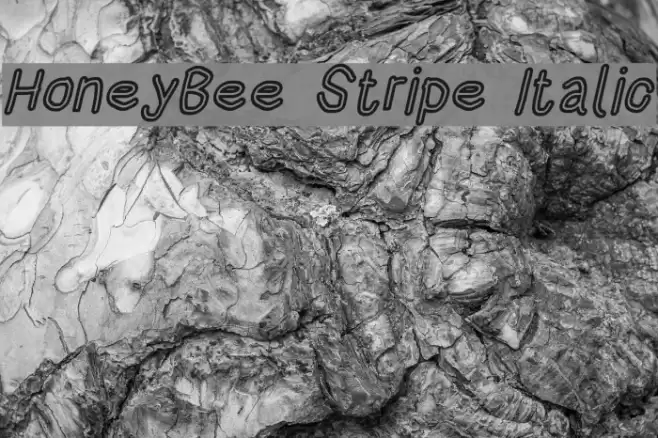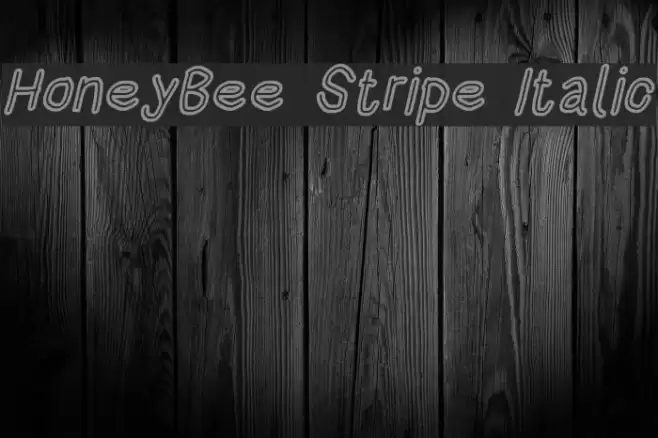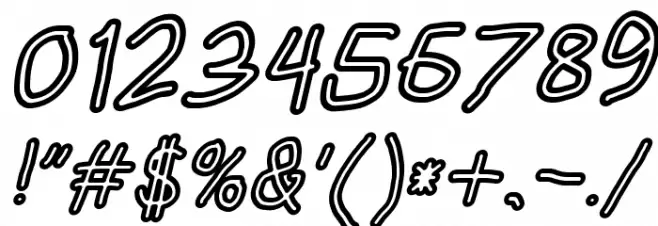
HoneyBee Stripe Italic Font
HoneyBee Stripe Italic Description
This playful and dynamic font features a bold, outlined style with a slight italic slant, giving it a sense of movement and energy. The characters are rounded and smooth, with a consistent thickness throughout, creating a cohesive and friendly appearance. The uppercase and lowercase letters maintain a uniform height, while the numerals and special characters are designed to complement the overall aesthetic. This font's unique striped effect adds a layer of visual interest, making it stand out in various design contexts.
A bold, outlined, italic font with a playful striped effect from Uncategorized fonts.
- Overall Style: Playful, Modern